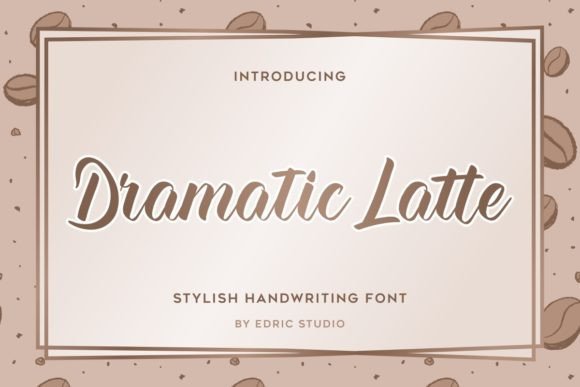
Dramatic Latte: A Font for Bold Branding
There’s something about starting a new brand project that feels like stepping into a blank canvas. I recently found myself in that exact situation, tasked with creating a visual identity for a small café that wanted to stand out in a crowded market. The client had a clear vision: they wanted something modern yet warm, stylish but approachable. That’s where Dramatic Latte came into play.
A First Impression
I first tested Dramatic Latte on a logo draft. As soon as I saw it, I knew it had potential. It’s a calligraphic font with a casual and stylish edge, and it carries a certain confidence that makes it ideal for branding. The curves are fluid, the strokes are bold, and the overall feel is both elegant and accessible. It’s not too ornate, which can sometimes make script fonts feel overwhelming.
What stood out immediately was how well it balanced personality and readability. I’ve used many script fonts before, but few manage to maintain clarity while still looking distinctive. Dramatic Latte is one of those rare exceptions. It works well in both display and body text, which is a huge plus when designing for multiple touchpoints.
Testing the Font in Real Design Scenarios
I started by experimenting with different applications. On the logo, I paired Dramatic Latte with a clean sans serif font for contrast. The result felt dynamic and inviting—perfect for a café that wants to be noticed without being too flashy.
Next, I moved to packaging design. I placed the font on a mockup of a coffee label and was impressed by how it held up against the background. It didn’t overpower the design, yet it made the text stand out. The font’s weight and spacing allowed for easy reading, even from a distance.
I also tested it on social media graphics. Whether it was a post promoting a seasonal menu or an Instagram story highlighting the café’s ambiance, Dramatic Latte added a touch of sophistication without feeling out of place. Its versatility became apparent here—it could work just as well in a digital environment as it did in print.
Font Pairing and Design Flexibility
One of the things I love about Dramatic Latte is its ability to pair well with other typefaces. For instance, I paired it with a simple sans serif font like Montserrat for the body text. This created a nice balance between the bold, stylized elements of Dramatic Latte and the clean, modern look of the sans serif.
When working on a website header, I used Dramatic Latte as the headline font and kept the rest of the content in a more neutral typeface. It worked beautifully, adding a sense of personality without compromising readability. I also found that the font looked great on a shop sign or a business card—both places where legibility is key.
Another thing I noticed was how Dramatic Latte handled different weights and styles. The font includes several alternates and ligatures, which gave me more creative freedom. It’s especially useful for creating visual hierarchy, whether it’s for a menu, a poster, or a flyer.
Readability and Brand Perception
As a designer, I always think about how a font affects the perception of a brand. Dramatic Latte has a certain charm that makes it feel friendly and approachable. It’s not overly formal, which makes it a good fit for a café or boutique that wants to connect with a wider audience.
However, I also considered how the font might affect readability in different contexts. For example, using it in a long-form editorial piece could be challenging. But since the client was focused on branding rather than extensive content, this wasn’t a concern. In most cases, Dramatic Latte works best as a display or headline font, with a more neutral typeface supporting the body text.
Practical Recommendations for Client Work
If you’re considering Dramatic Latte for a client project, there are a few things to keep in mind. First, test it across various mediums—print, digital, signage, and packaging—to ensure it looks great everywhere. Second, don’t hesitate to experiment with font pairing. It’s easy to find complementary typefaces that enhance the overall design without clashing.
Also, check the included styles and file formats. Dramatic Latte offers a range of weights and styles, which gives you more flexibility in your design work. If you’re working on a commercial project, make sure you understand the licensing terms, especially if you plan to use the font in merchandise or digital templates.
Finally, remember that typography is just one part of a brand’s identity. While Dramatic Latte can elevate your designs, it should always be used in conjunction with thoughtful color choices, layout, and imagery. Together, these elements create a cohesive and compelling brand presence.